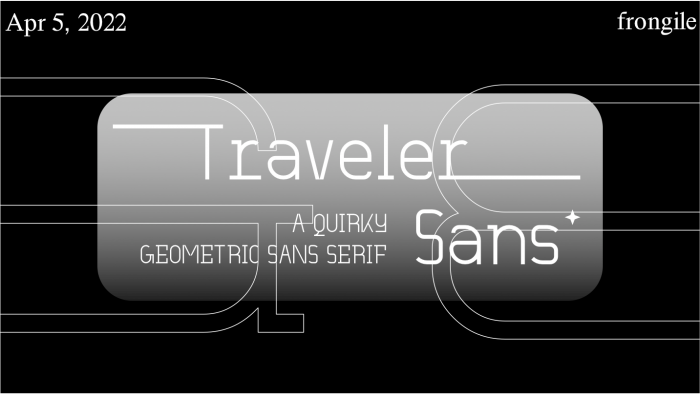
Traveler Sans
by frongile
inspired by neue machina and lack
added fun alternates in the private use area
Nice and quite readable.
I like such fonts. So stylishly utilitarian. Nice.